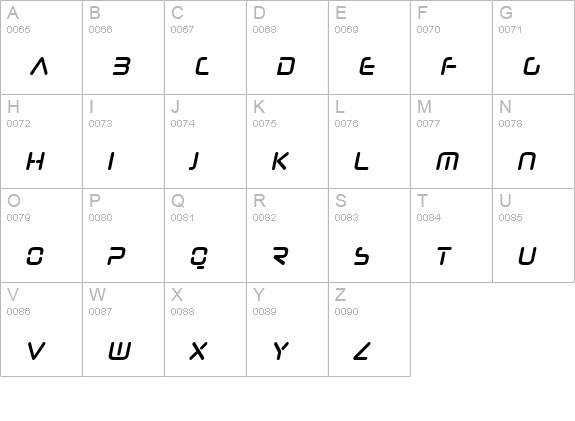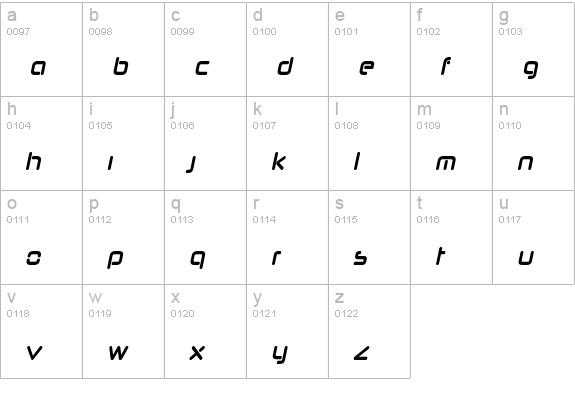
Neuropol Nova Cnd Bold Italic Font Details
Neuropol Nova Cnd Bold Italic is a strong, high-contrast, italic variant in the Neuropol typeface family \xE2\x80\x94 well suited to headlines, attention-grabbing titles, and strong calls-to-action.
Neuropol Nova Cnd Bold Italic is a futuristic and dynamic font that exudes a sense of modernity and innovation. The sleek design and bold italic styling make it perfect for creating eye-catching headlines, posters, and logos. With its unique blend of sharp angles and curved lines, this font is sure to make a strong visual impact in any design project. Best of all, Neuropol Nova Cnd Bold Italic is available for free download at FontsMarket.com. This means that you can easily access this striking font and incorporate it into your creative projects without any cost. Whether you are designing a cutting-edge website, a futuristic branding package, or a high-tech advertisement, Neuropol Nova Cnd Bold Italic is the perfect choice to add a touch of contemporary flair. Download it now and elevate your designs with this captivating and stylish font.